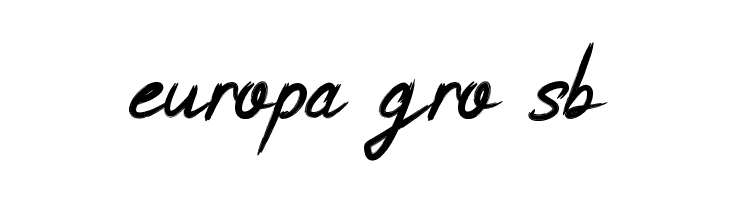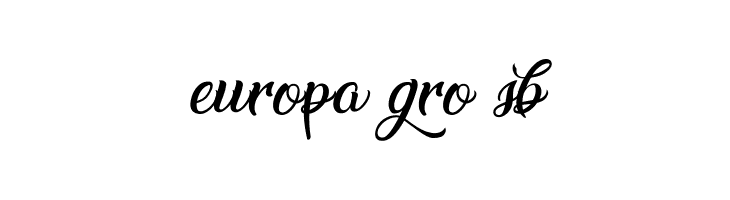
New Balance Personal Use Regular Font
Font by Billy Argel - Personal-use only. For commercial use please contact owner.
A bold, elegant script font with flowing, cursive letters and ornate uppercase characters.
Sea Balance Personal Use Regular Font
Font by Billy Argel Fonts - www.billyargel.com - Personal-use only. For commercial use please contact owner.
An elegant script font with intricate, flowing letterforms and classic calligraphic style.
Balance Groovy Font
Font by Rian Dryana
A modern, bold font with smooth, rounded edges and consistent stroke width.
Right Balance Font
Font by www.dcoxy.com
A playful, hand-drawn font with tall, narrow characters and a whimsical style.
Balance Font
Font by Mans Greback - www.mansgreback.com - Personal-use only. For commercial use please contact owner.
A bold, playful handwritten font with rounded edges and a consistent weight.
Balance Groovy Groovy Font
Font by Rian Dryana
A bold, retro font with rounded, bubbly letterforms and a playful, groovy style.
White Balance Demo Font
Font by Edric Studio - Personal-use only. For commercial use please contact owner.
A dynamic, cursive font with bold, sweeping strokes and a modern, artistic flair.
Balance Life Font
Font by Mans Greback - www.mansgreback.com - Personal-use only. For commercial use please contact owner.
A playful, casual handwritten font with smooth, rounded edges and consistent stroke thickness.